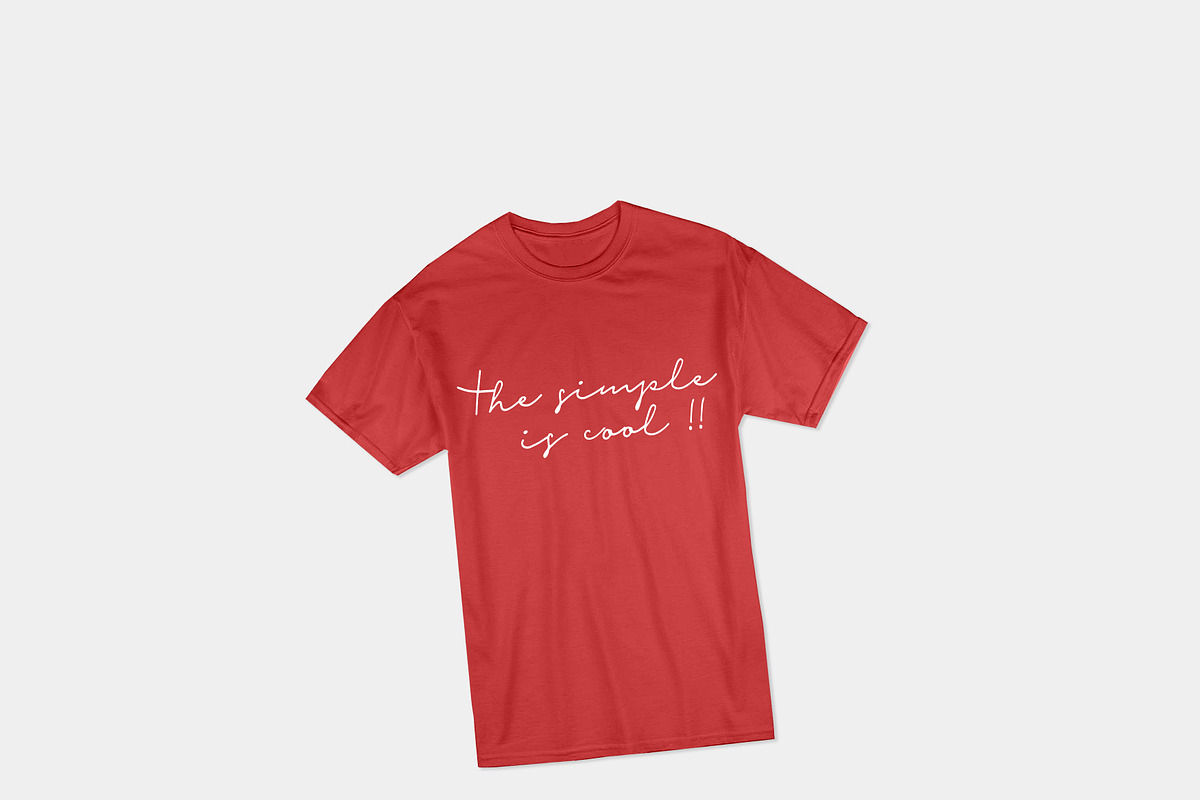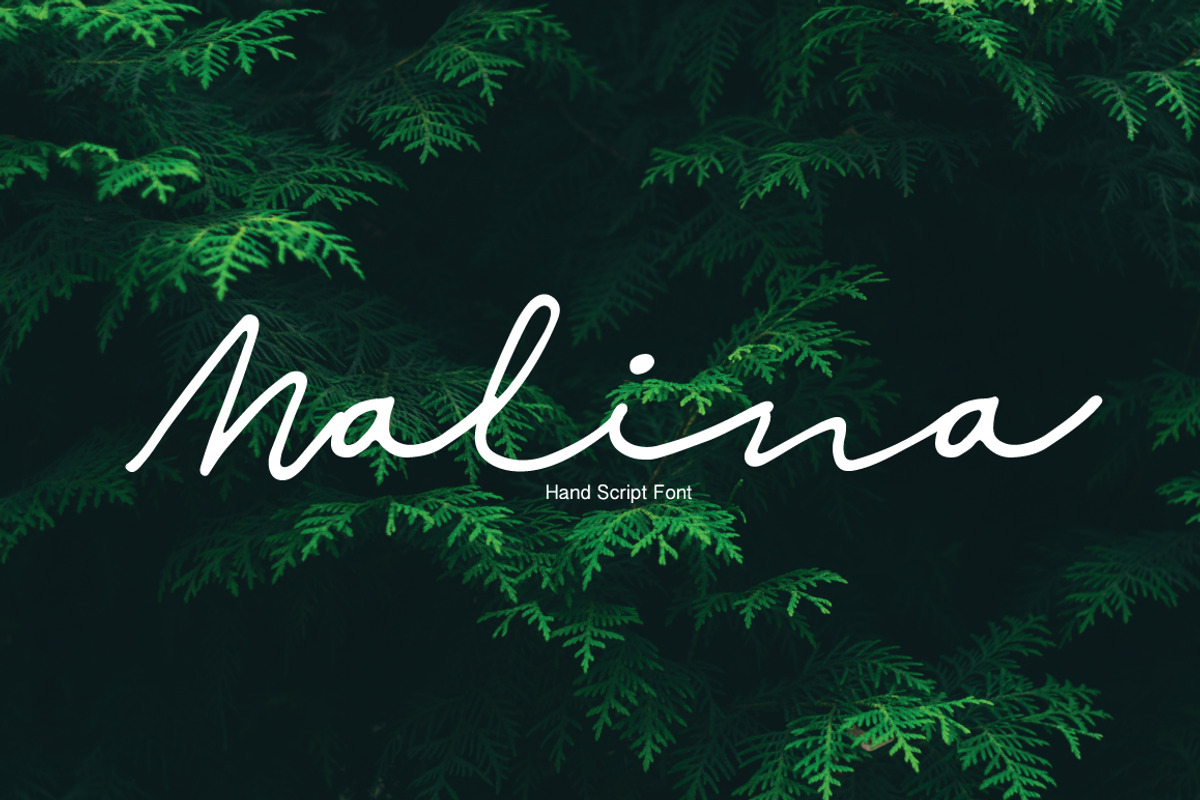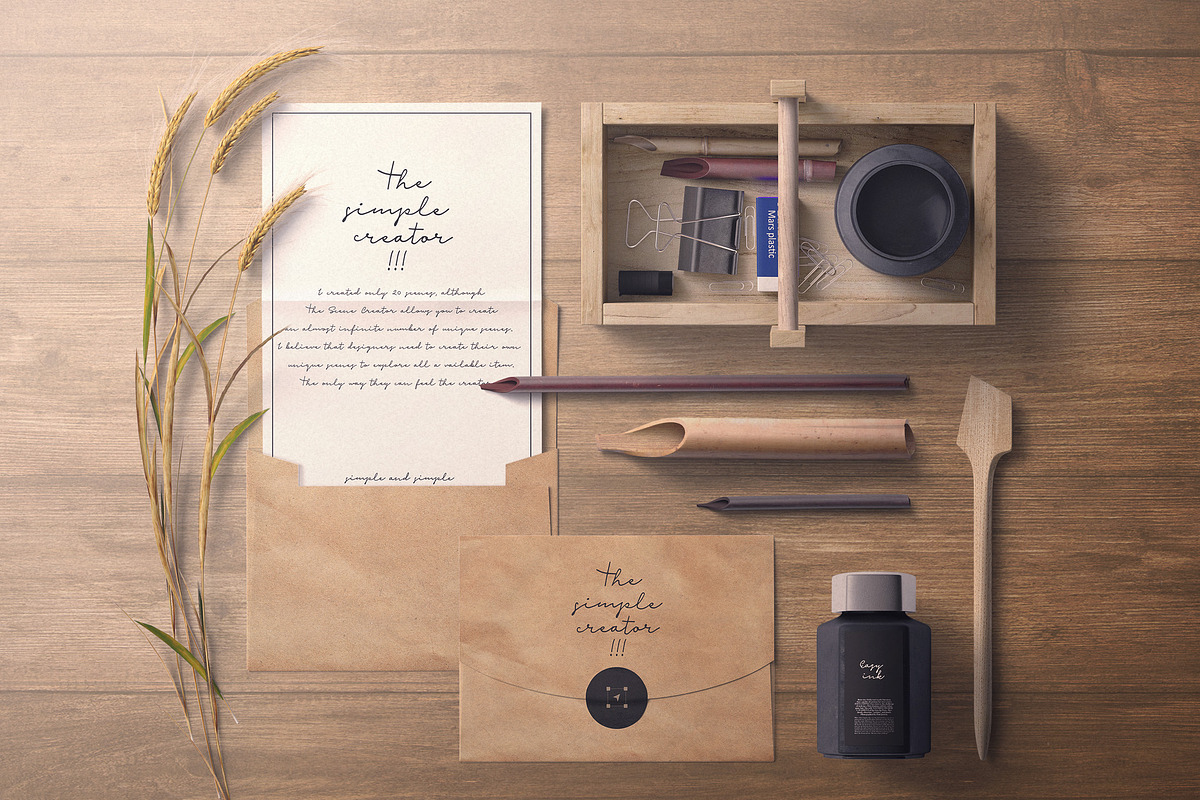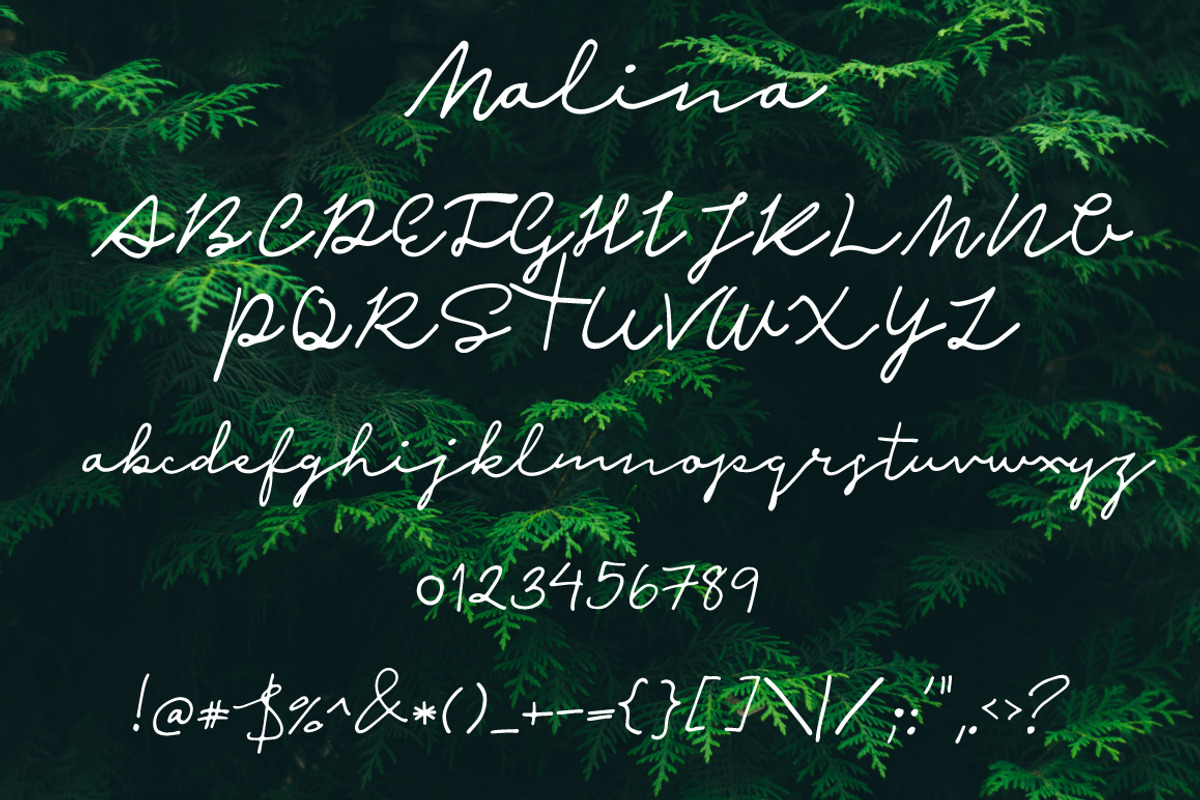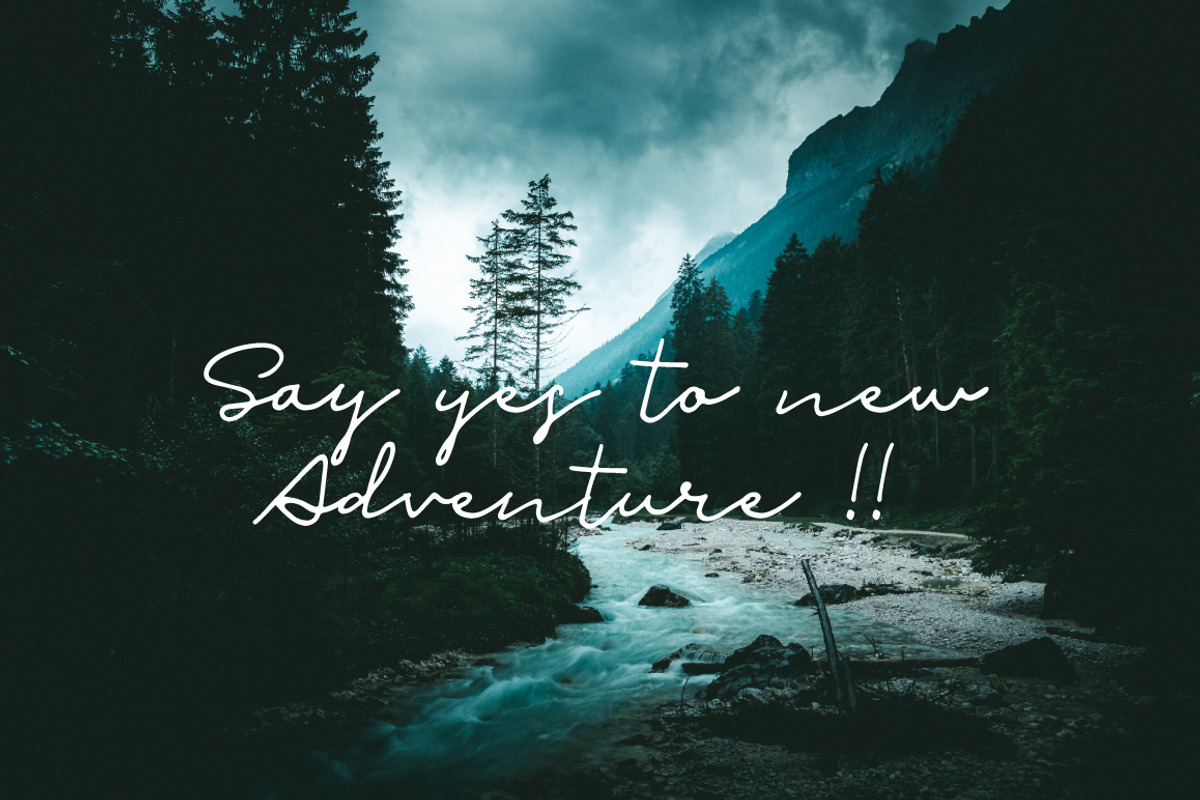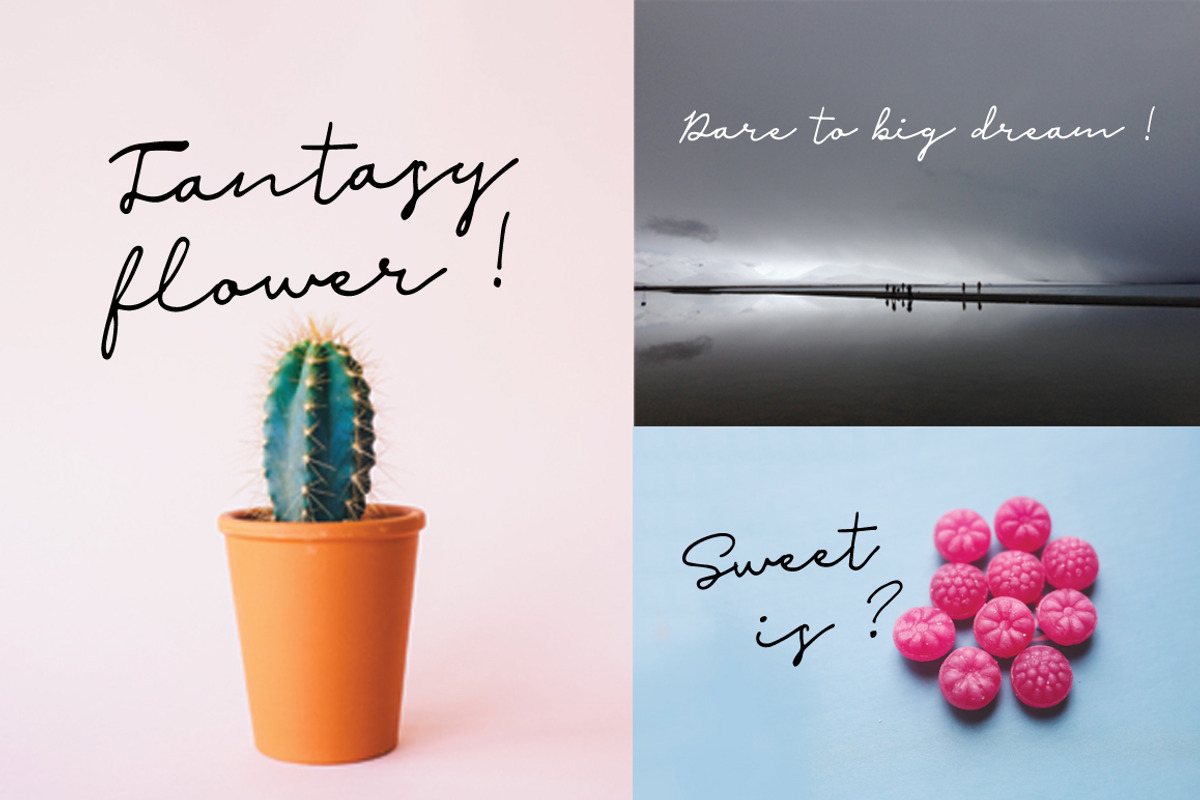
Malina | Script Font
It's handwritten script font.
This font are perfect for wedding invitation or your blog. Also with their help, you can create a logo or beautiful frame for your home. Or just use for your small business, book covers, stationery and more.